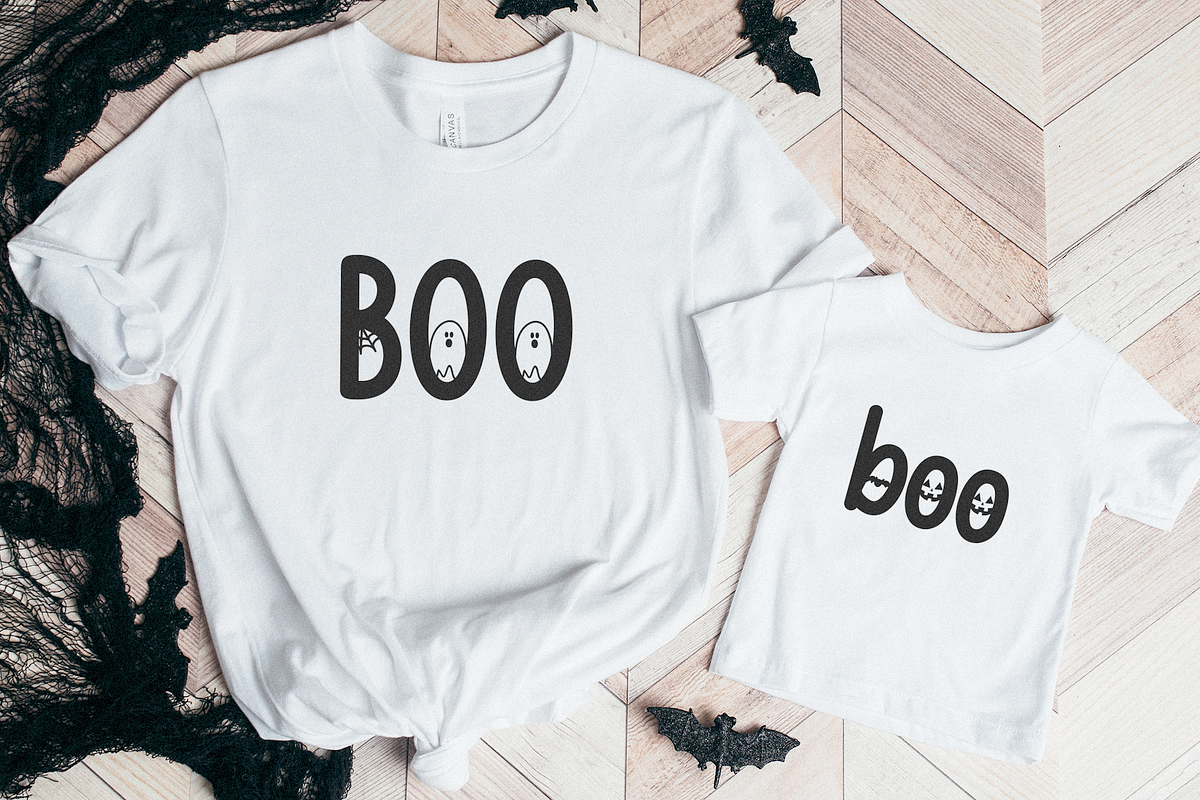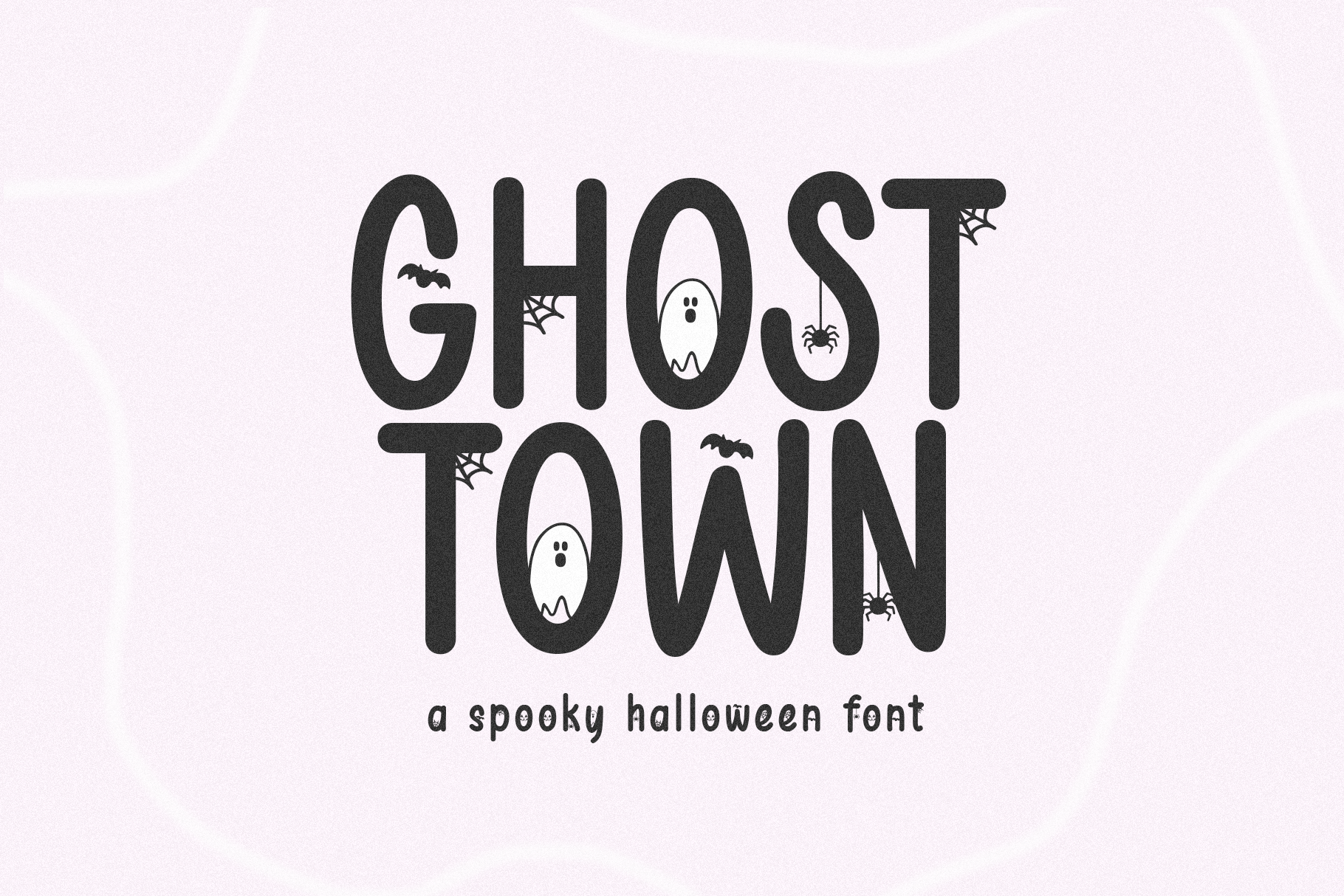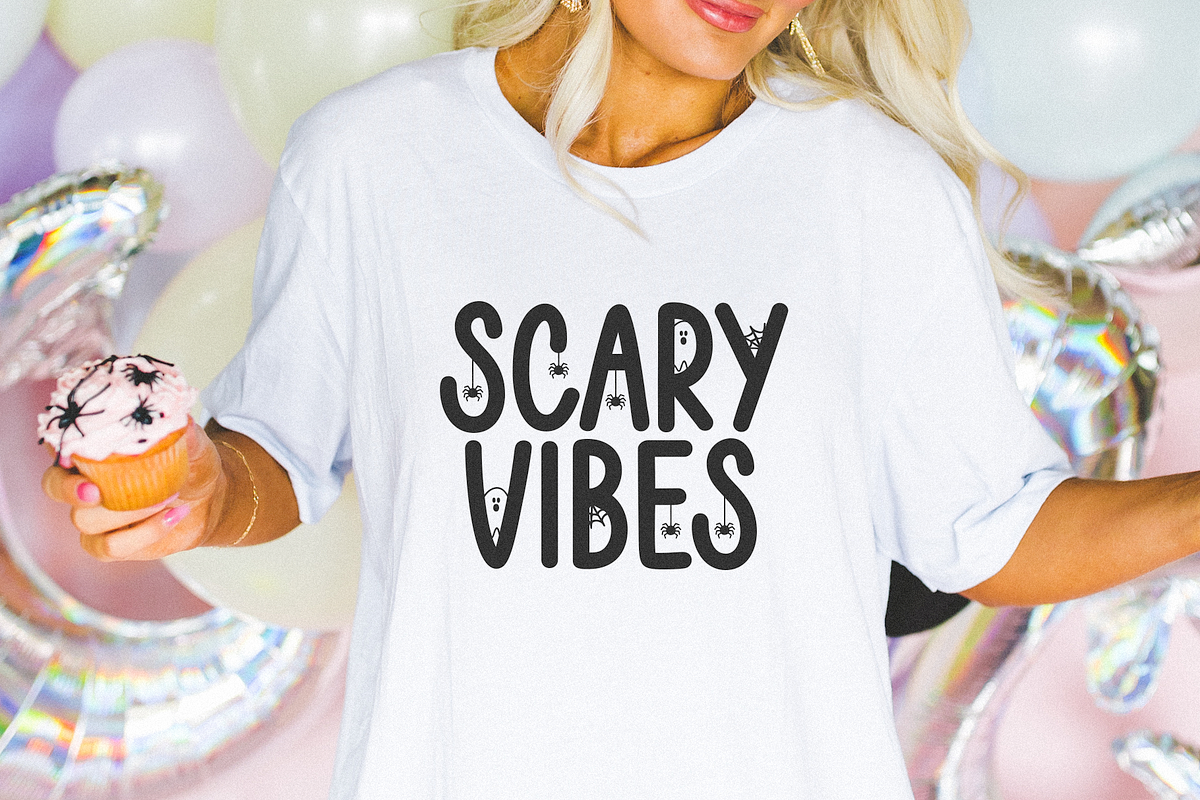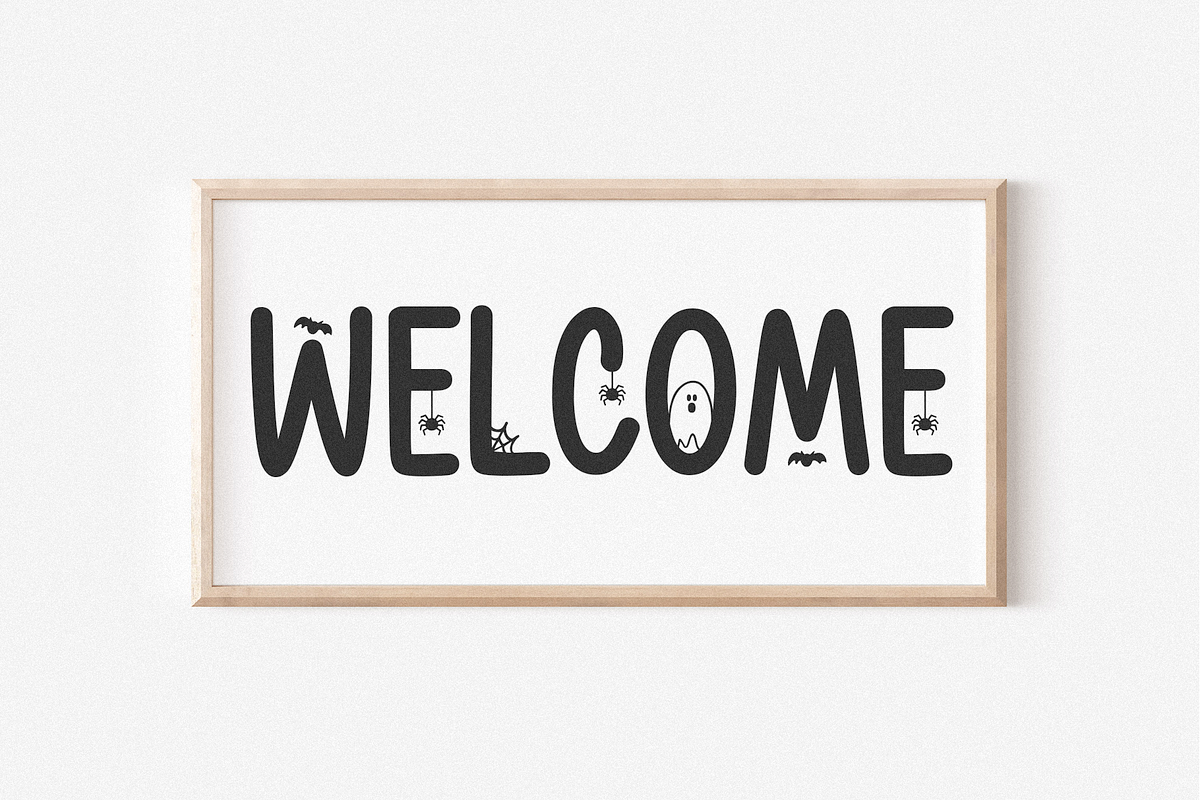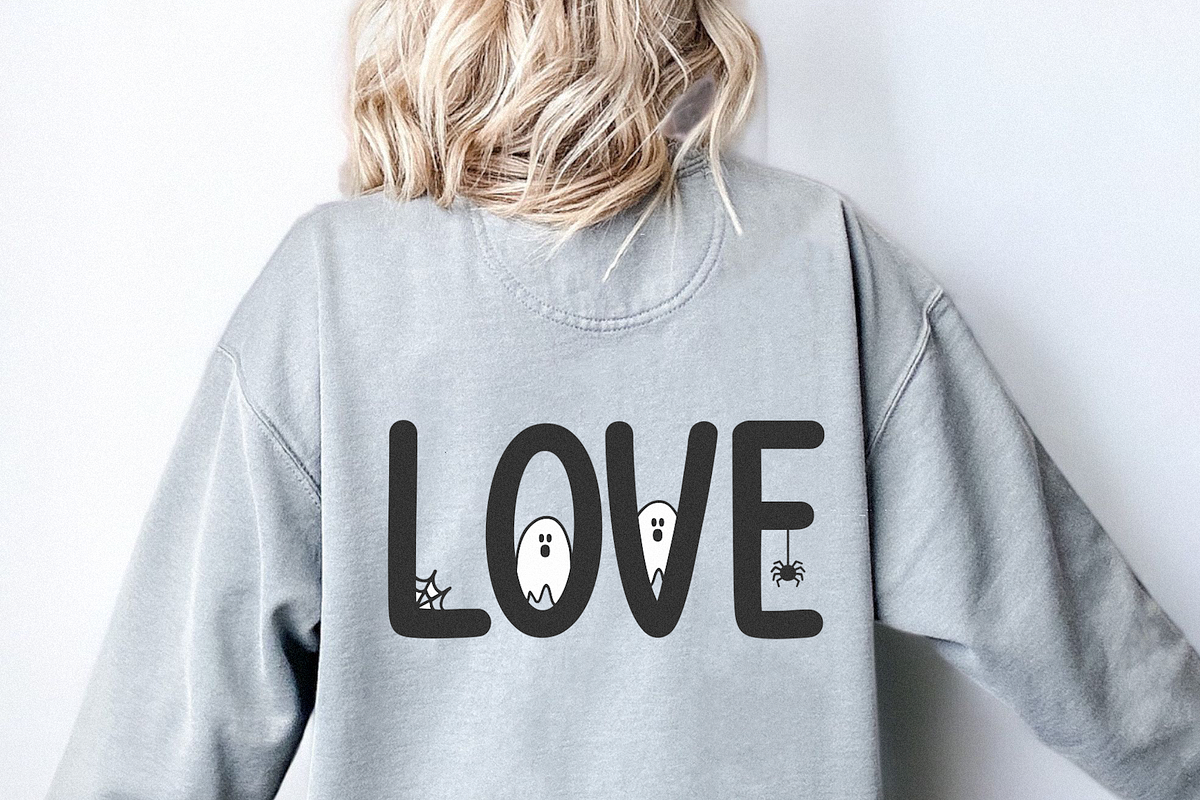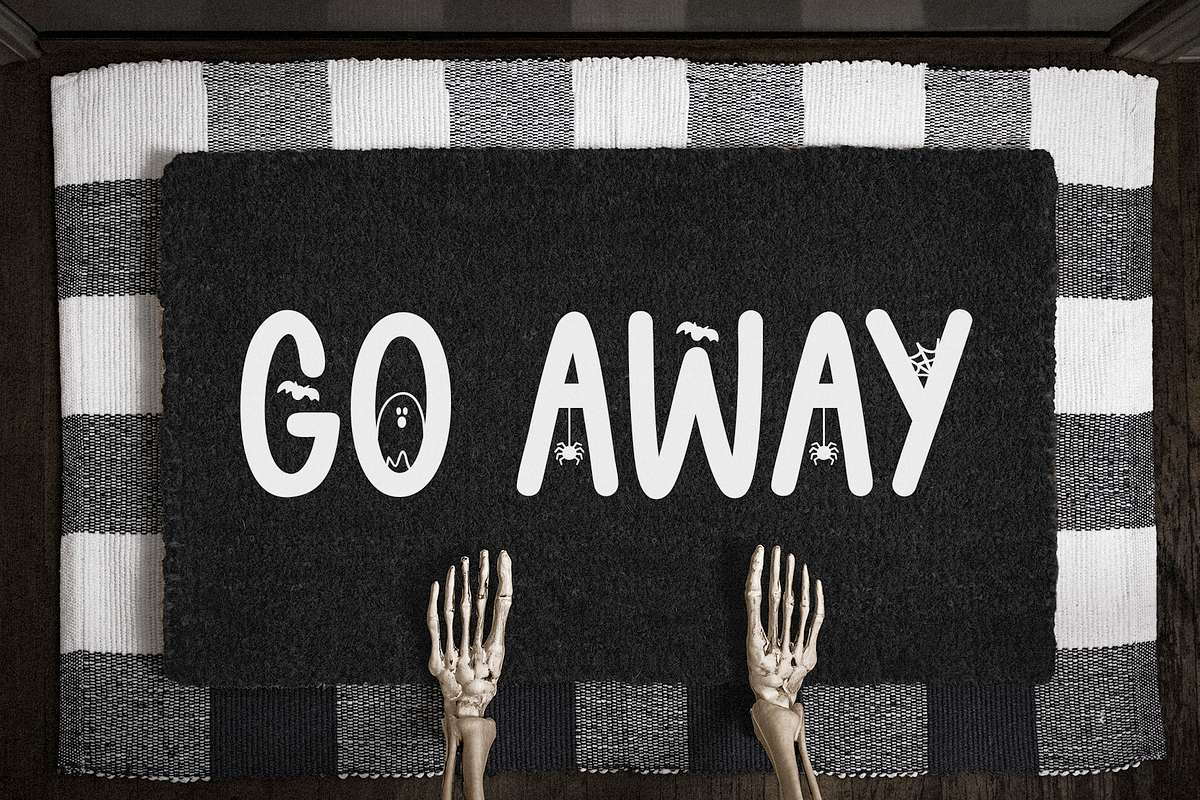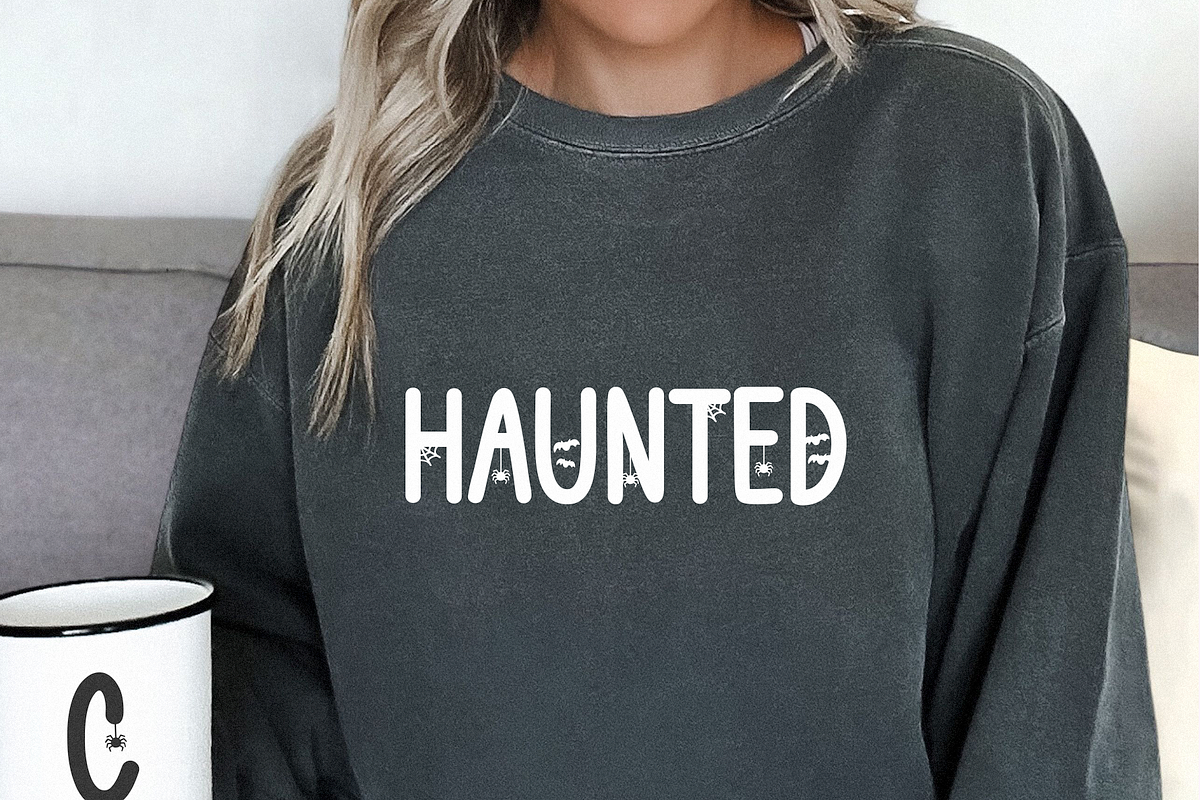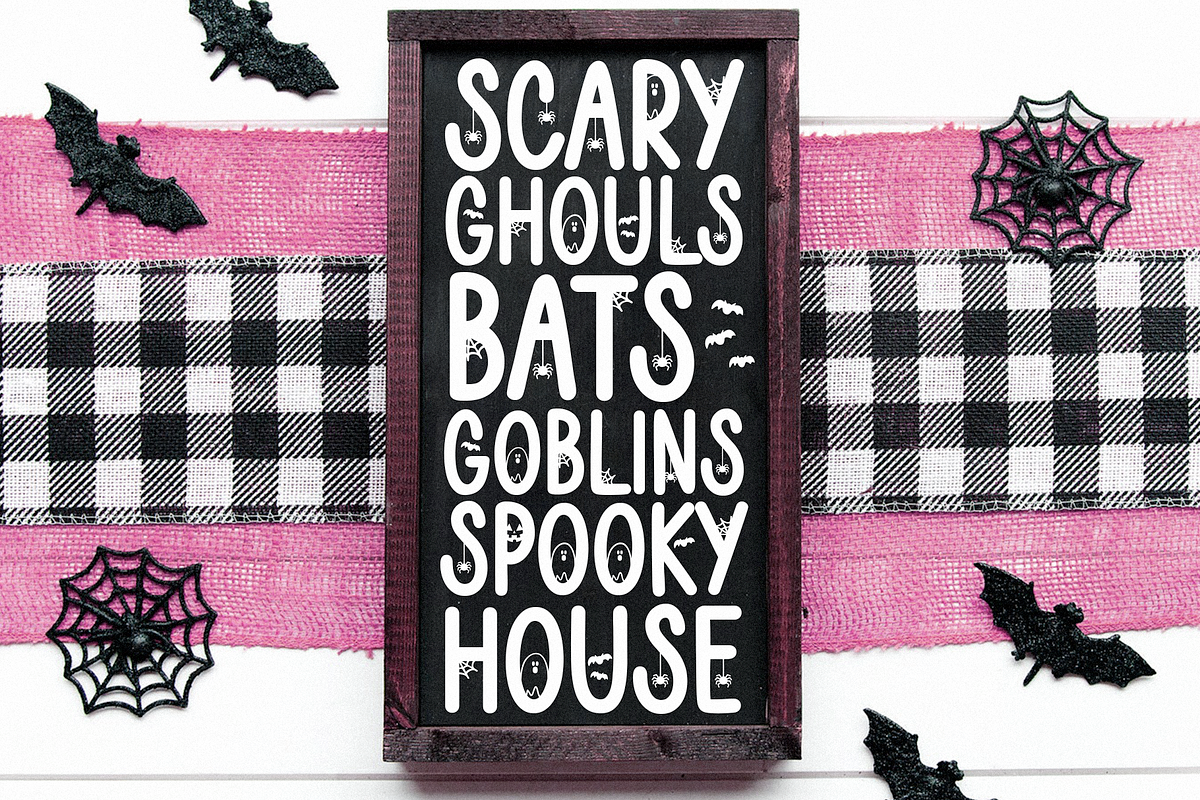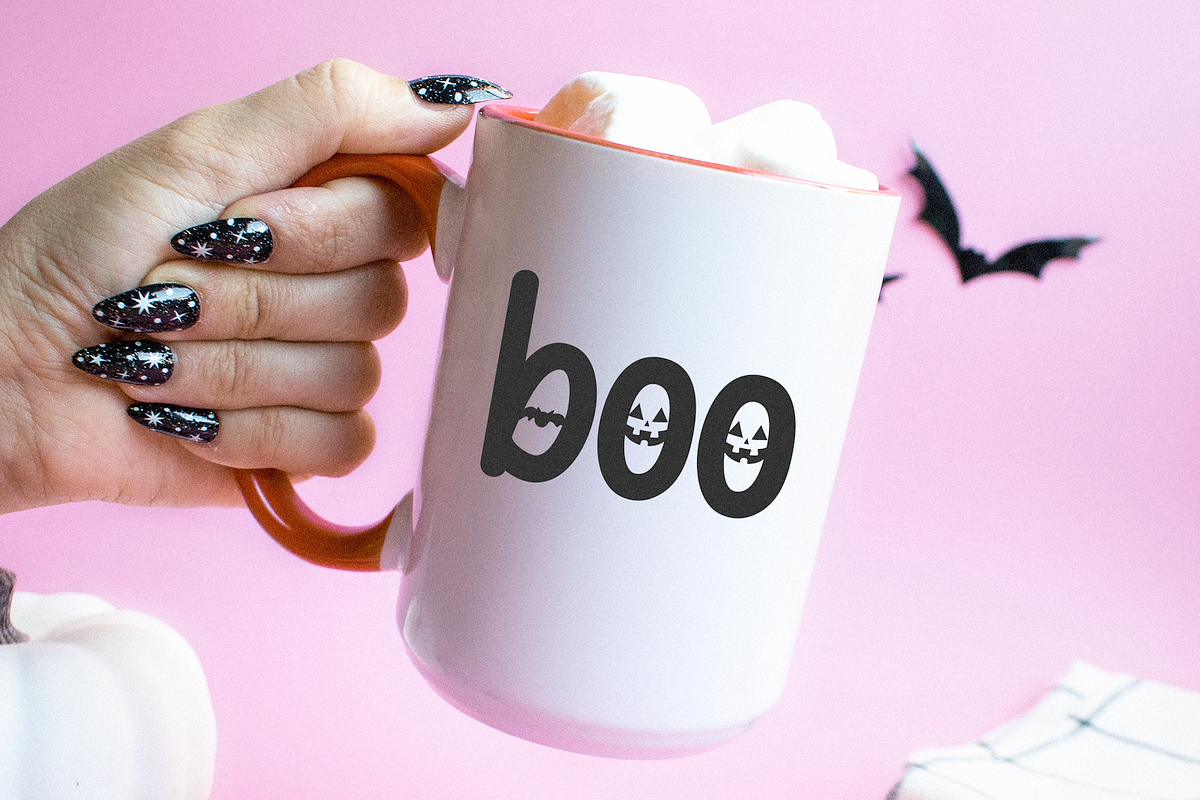
Ghost Town | Spooky Halloween Font
Ghost Town is a spooky halloween font.
This font is perfect for halloween designs, shirts, svg files, cricut projects, halloween invitations, stickers, mugs and more!